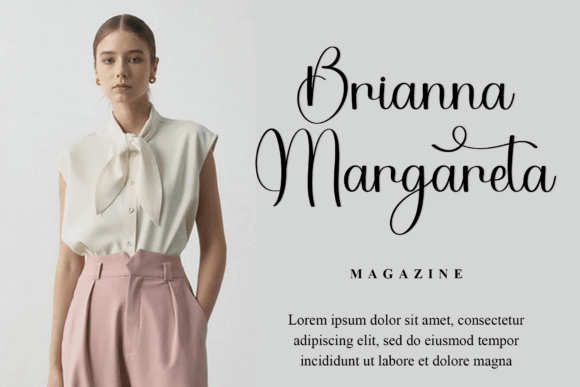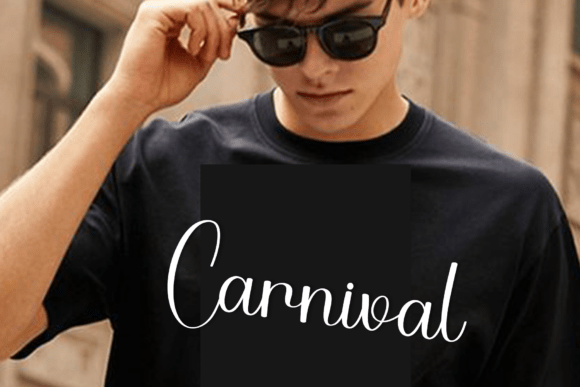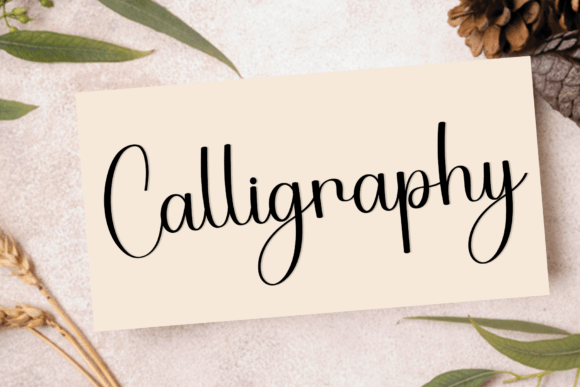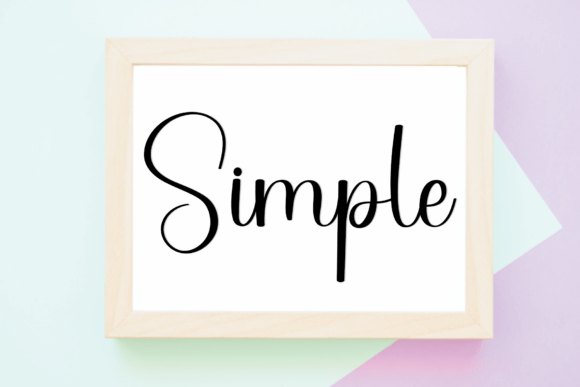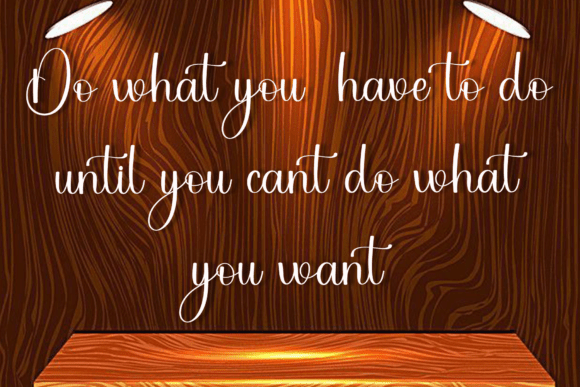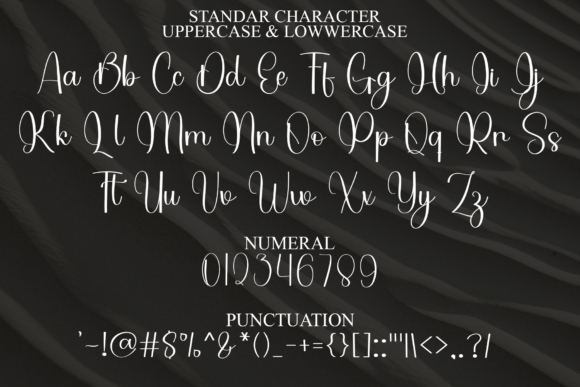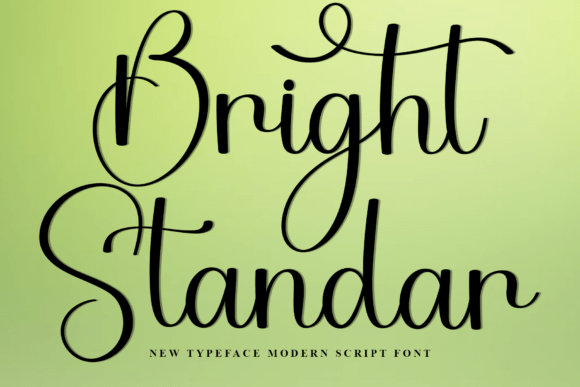
Introducing Bright Standard Font: The Ultimate Holiday Typeface
Are you looking for a font that captures the essence of the holiday season? Do you want to add a touch of magic to your designs and make them stand out? Look no further than Bright Standard Font, a festive and merry typeface that’s perfect for greeting cards, gift tags, and holiday-themed projects.
Bright Standard Font is a decorative typeface that’s specifically designed to bring a cheerful and nostalgic ambiance to your words. With its whimsical flair and enchanting elements, this font is sure to add a touch of wonder to your designs. Whether you’re creating holiday cards, gift tags, or festive posters, Bright Standard Font is the perfect choice.
Bright Standard Font is a versatile typeface that’s perfect for designers and crafters alike. With its PUA encoding, you can easily access all of the amazing glyphs and ligatures, making it easy to create stunning designs. Whether you’re a professional designer or a crafter looking to add a personal touch to your projects, Bright Standard Font is the perfect choice.
Key Features of Bright Standard Font
• PUA Encoded: With PUA encoding, you can access all of the amazing glyphs and ligatures with ease, making it easy to create stunning designs.
• Decorative Elements: Bright Standard Font features decorative elements that add a touch of enchantment to your designs.
• Whimsical Flair: This font has a whimsical flair that’s perfect for holiday-themed projects.
• Festive and Merry: Bright Standard Font is a festive and merry typeface that’s perfect for capturing the spirit of the holiday season.
Uses for Bright Standard Font
Bright Standard Font is perfect for a variety of uses, including:
• Greeting Cards: Add a touch of magic to your holiday greeting cards with Bright Standard Font.
• Gift Tags: Create personalized gift tags with Bright Standard Font and add a special touch to your gifts.
• Holiday-Themed Projects: Bright Standard Font is perfect for holiday-themed projects, such as festive posters, flyers, and brochures.
• Social Media Graphics: Use Bright Standard Font to create stunning social media graphics that capture the spirit of the holiday season.
Why Choose Bright Standard Font?
There are many reasons why you should choose Bright Standard Font for your holiday designs. Here are just a few:
• Unique and Eye-Catching: Bright Standard Font is a unique and eye-catching typeface that’s sure to make your designs stand out.
• Easy to Use: With PUA encoding, Bright Standard Font is easy to use and allows you to access all of the amazing glyphs and ligatures with ease.
• Versatile: Bright Standard Font is a versatile typeface that’s perfect for a variety of uses, from greeting cards to social media graphics.